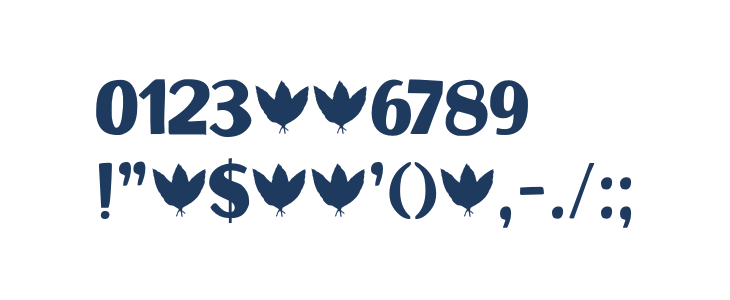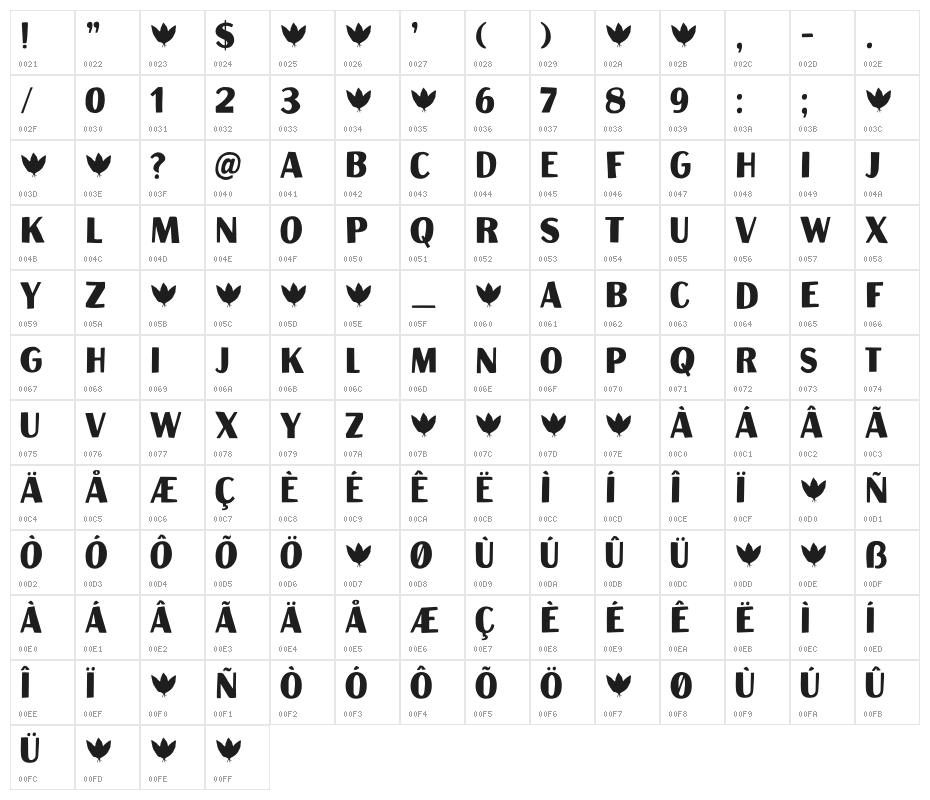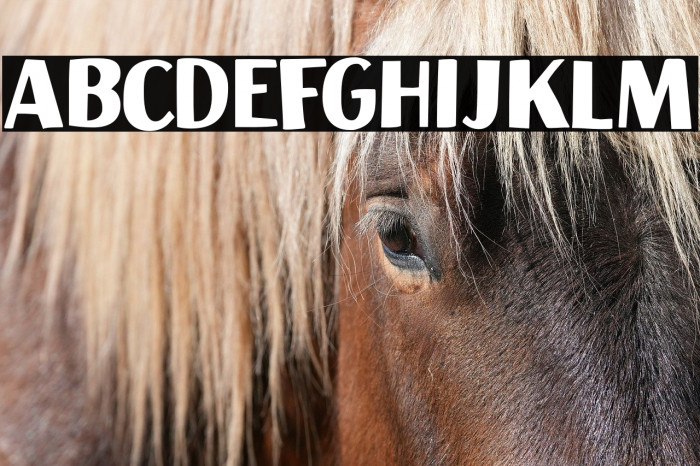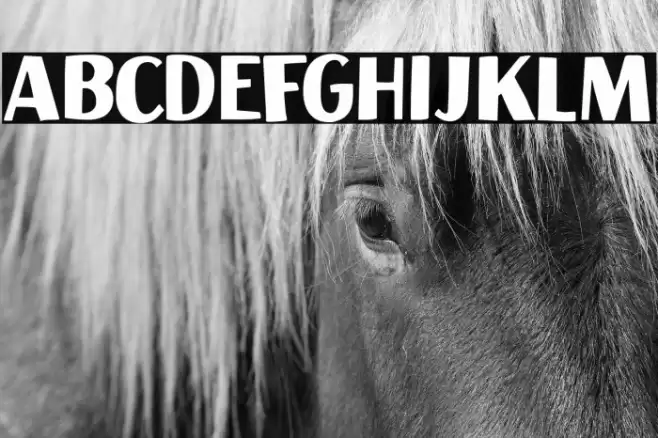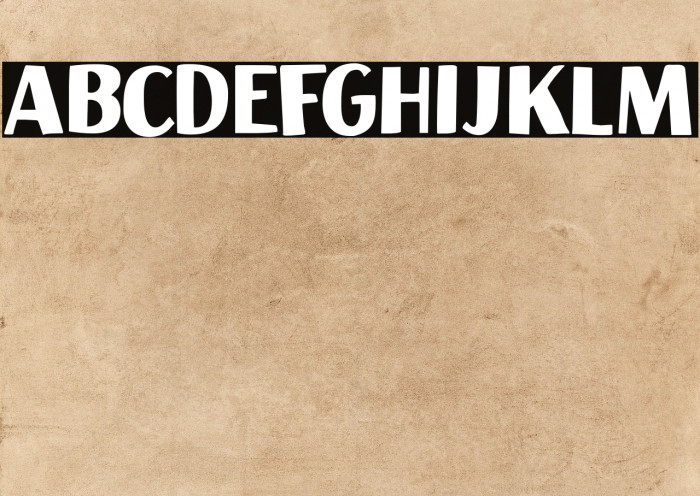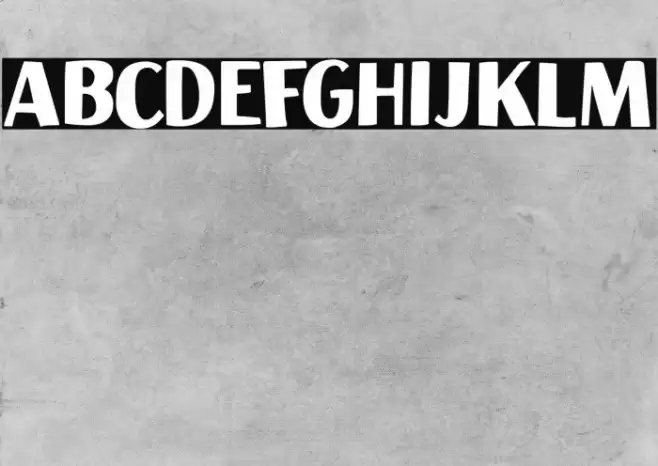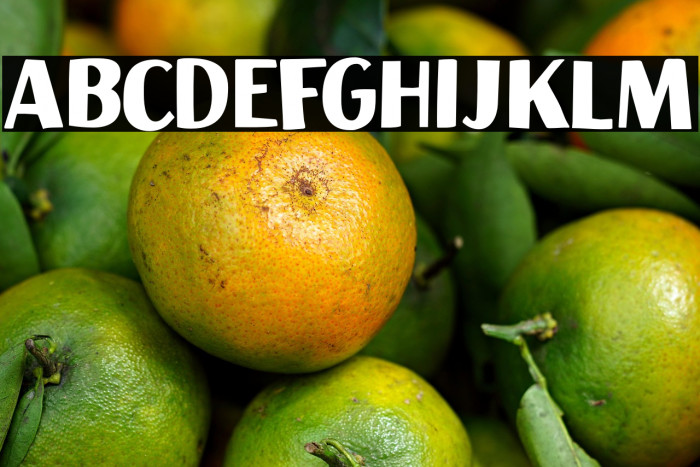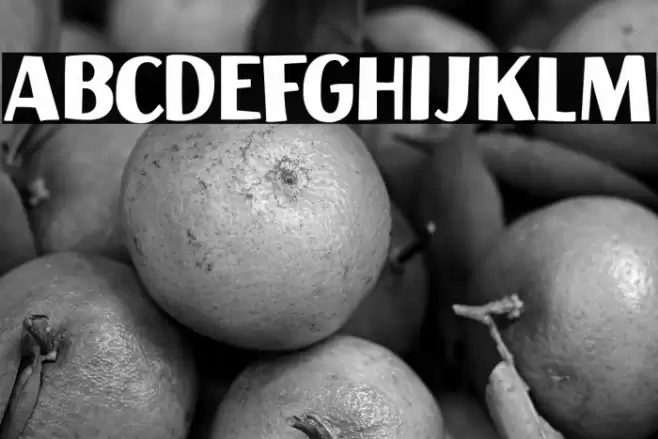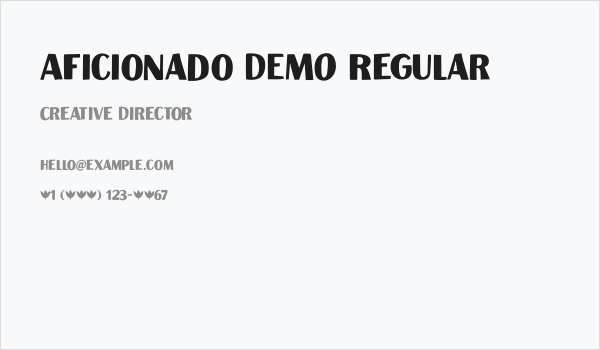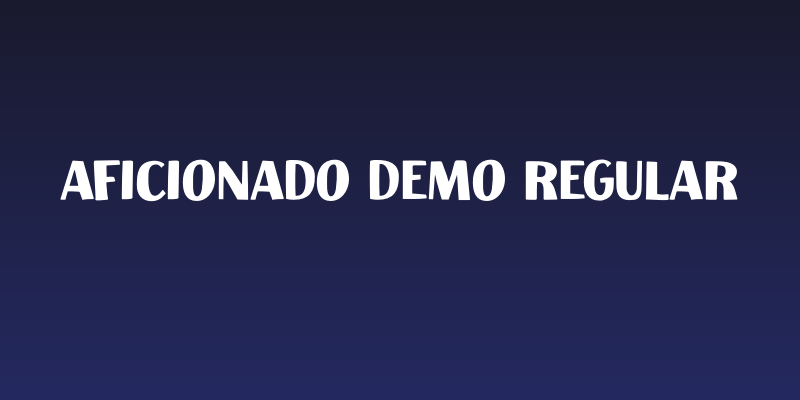
Aficionado DEMO Regular Font
Aficionado DEMO Regular Description
This font features a bold and playful design with a distinctive, decorative style. The characters are robust and have a strong presence, making them ideal for attention-grabbing headlines. The uppercase letters are particularly striking with their wide, exaggerated forms, while the lowercase letters maintain a consistent, bold appearance. The numbers and special characters are equally bold, with some characters incorporating unique, leaf-like shapes that add a whimsical touch. This font's overall style is both modern and decorative, making it suitable for a variety of creative projects.
| Proposed Projects | Ideal for posters, branding, event invitations, and any project requiring a bold, eye-catching typeface. |